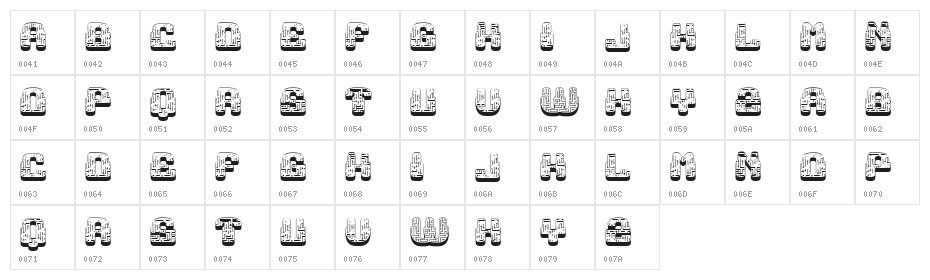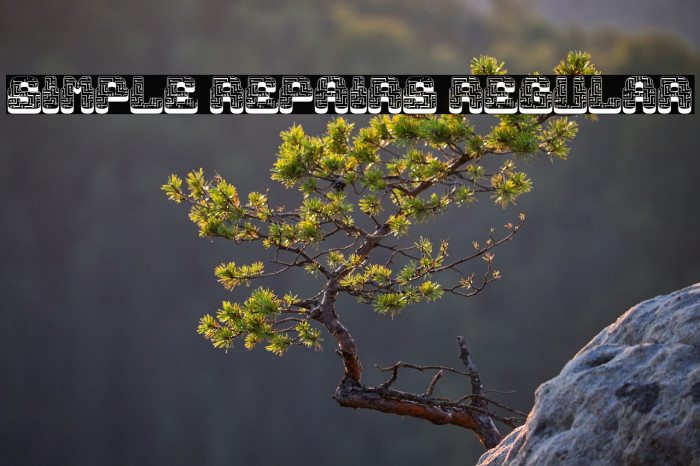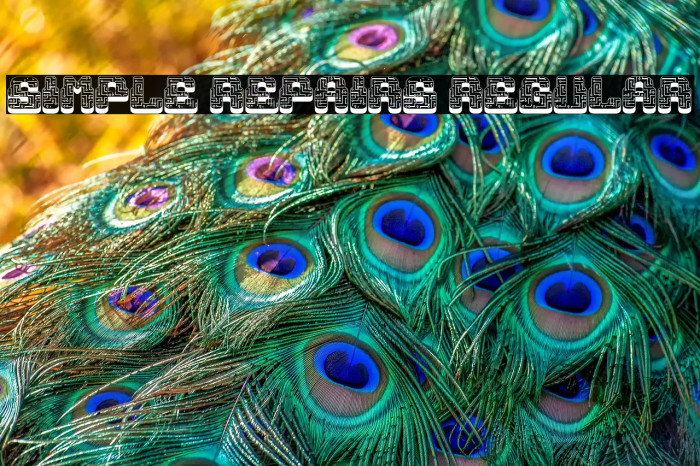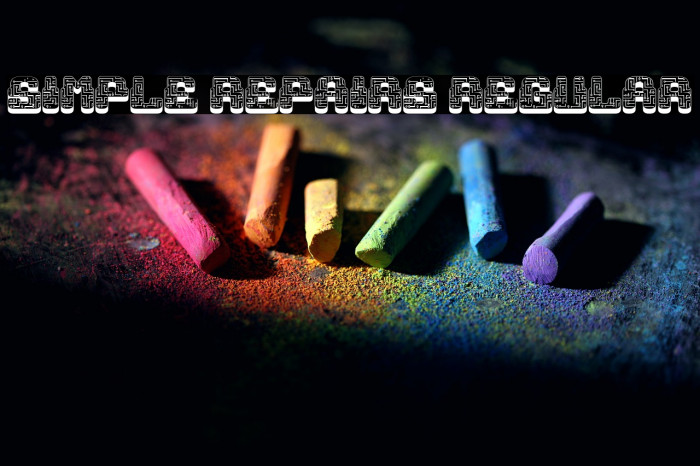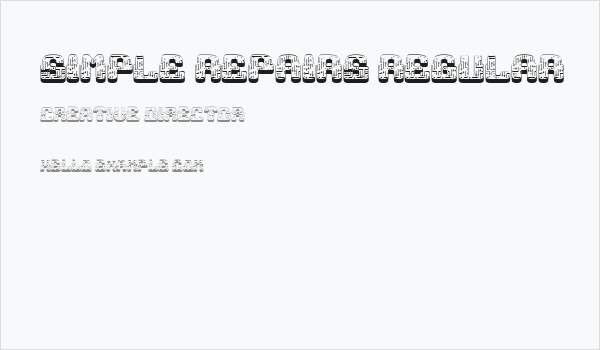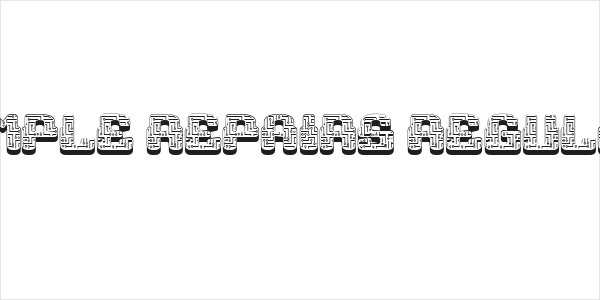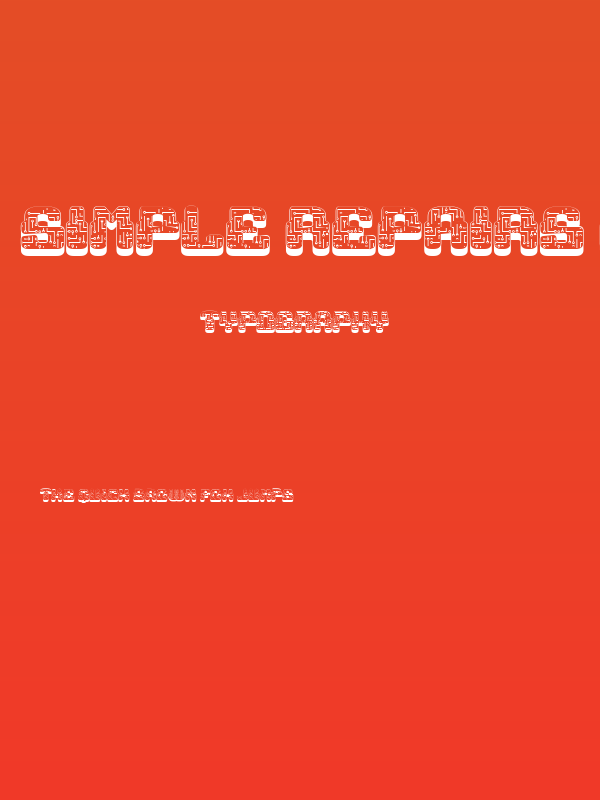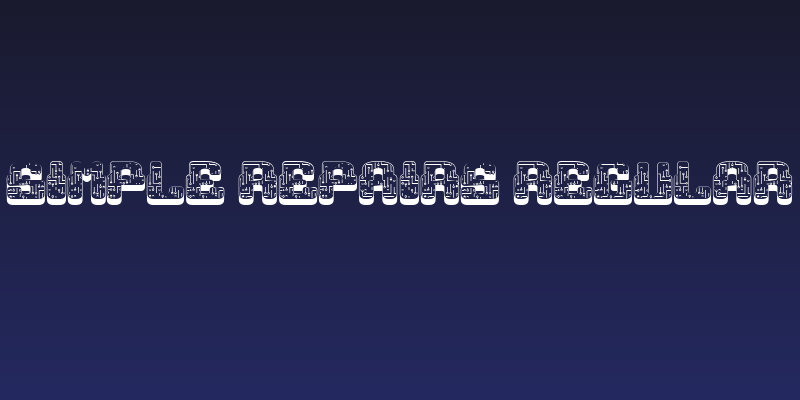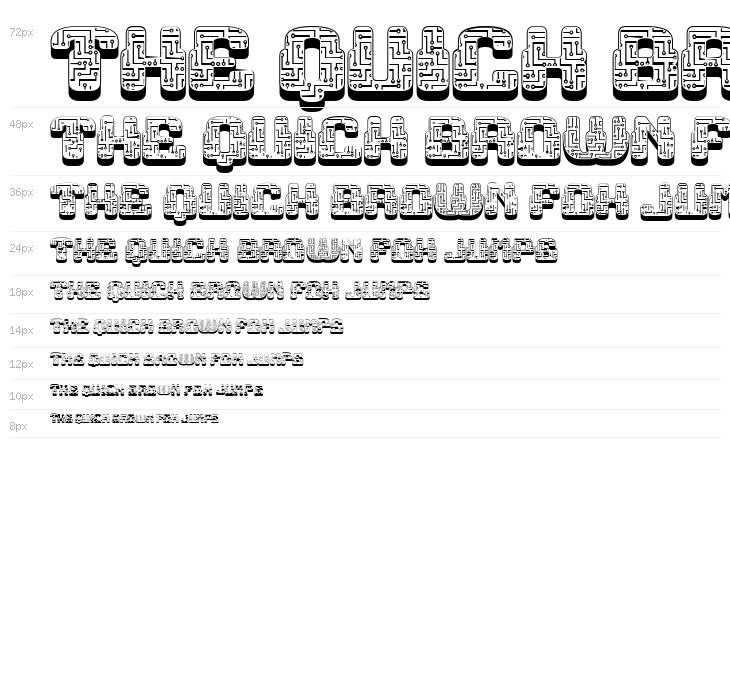
Simple Repairs Regular Font
Simple Repairs Regular Description
This font features a bold and intricate design with a maze-like pattern inside each character. The letters are blocky and have a three-dimensional appearance, giving them a substantial and eye-catching presence. The detailed pattern within the letters adds a unique and decorative touch, making it stand out for creative and artistic projects. The font is consistent in its style across uppercase, lowercase, and numerical characters, maintaining the same level of detail and complexity. The special characters also follow this intricate design, ensuring a cohesive look throughout.
| Overall Style | Modern, Decorative |
| Proposed Projects | Ideal for posters, album covers, branding, and any project requiring a bold, artistic statement. |